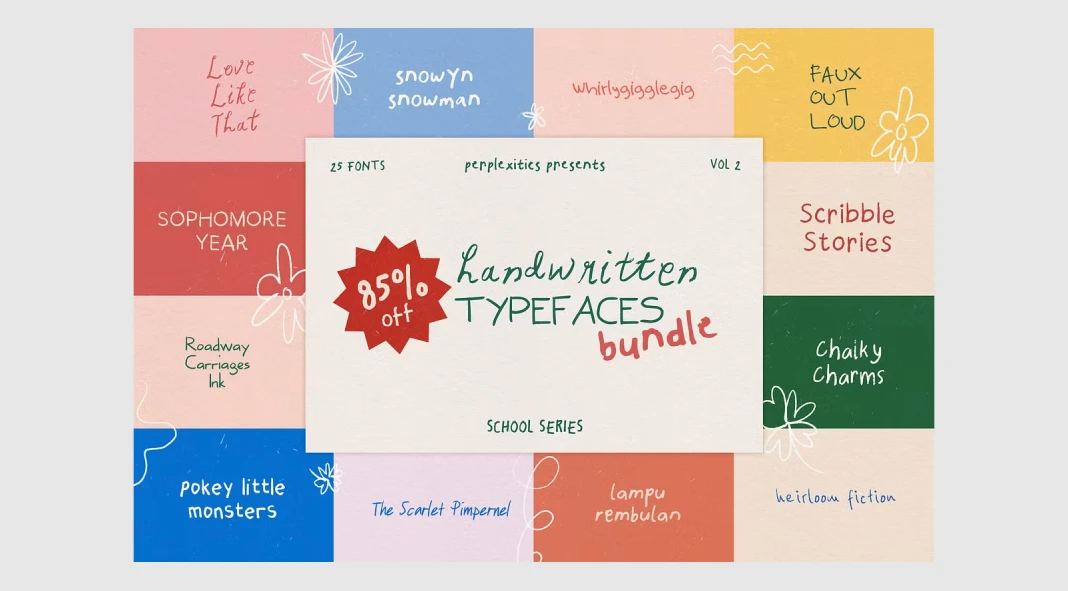
Craving Authentic Creativity? Unlock it with these Incredible Handwritten Fonts!
Ever feel like your designs are missing that human touch? Do you long for the days of handwritten notes and playful classroom doodles? You are not alone! In today’s digital age, that authentic, personal feel can be incredibly powerful. But how do you inject that warmth and personality into your projects?
Well, imagine having a treasure trove of unique, charming fonts that instantly evoke that nostalgic feeling. A handwritten font bundle can be the key to unlocking a whole new level of creative expression. This isn’t just about choosing a font; it’s about choosing a voice, a feeling, a connection.
Wouldn’t it be amazing to add that special something to your designs, making them stand out from the crowd? The “School Series: A Handwritten Font Bundle” by Perplexitics might just be the answer you’ve been looking for. Let’s explore why this bundle could be a game-changer for your creative projects.
Why Choose a Handwritten Font Bundle?
Why should designers and creatives consider using a handwritten font bundle in the first place? There are plenty of reasons! For instance, handwritten fonts bring a sense of authenticity and personality to designs that other fonts often lack.
Think about it. Machine-perfect fonts can sometimes feel sterile and impersonal. Handwritten font bundles, on the other hand, capture the quirks and imperfections of actual handwriting. This creates a more relatable and engaging experience for the viewer. They evoke a sense of nostalgia and warmth.
Besides that, a diverse handwritten font bundle offers incredible versatility. It provides you with a range of styles, from playful and whimsical to elegant and refined. This allows you to perfectly match the tone and message of your project. They are ideal for:
- Logos and branding
- Invitations and announcements
- Social media graphics
- Website headers
- Children’s books and educational materials
So, choosing a handwritten font bundle is a choice to give a project authenticity, personality, and versatility.
“School Series: A Handwritten Font Bundle” by Perplexitics: A Closer Look
Perplexitics has created something truly special with their “School Series” handwritten font bundle. It captures the essence of classic school days and adds a touch of nostalgia to your designs. This carefully curated collection offers a variety of styles, each with its own unique personality.
The “School Series” isn’t just a collection of fonts; it’s a toolkit for creating designs that resonate with your audience on a deeper level. What does this bundle contain, and what makes it so attractive?
What’s Included in the Bundle?
The “School Series” handwritten font bundle Vol.2 includes 25 unique fonts across 12 distinct typefaces. It provides a wide range of options to suit different design needs. Here’s a breakdown of what you can expect:
- Love Like That Regular, Alt1, Alt2, Alt3 (OTF, TTF): A charming and versatile font with multiple alternates for added flexibility.
- Snowyn Snowman (OTF, TTF): Perfect for winter-themed designs, this font is playful and inviting.
- Whirlygigglegig Regular, Bold (OTF, TTF): A fun and quirky font that adds a touch of whimsy to any project.
- Faux Out Loud Regular, Bold (OTF, TTF): A bold and expressive font that makes a statement.
- Sophomore Year Regular, Bold (OTF, TTF): A classic and clean font that is perfect for a variety of applications.
- Scribble Stories Regular, Italic, Bold, Bold Italic (OTF, TTF): A playful and energetic font that captures the feel of handwritten notes.
- Roadway Carriages Ink Regular, Bold (OTF, TTF): A vintage-inspired font with a touch of elegance.
- Chalky Charms (OTF, TTF): A fun font that looks like written with chalk.
- Pokey Little Monsters (OTF, TTF): Another playful and quirky font.
- The Scarlet Pimpernel Regular, Bold (OTF, TTF): A historical font with a dramatic flair.
- Lampu Rembulan Regular, Bold (OTF, TTF): A font with a modern touch.
- Heirloom Fiction Regular, Bold (OTF, TTF): A font with a vintage, classic, and nostalgic feel.
All fonts support multiple languages, ensuring your designs are accessible to a global audience.
Why This Font Bundle Stands Out
So, what makes this handwritten font bundle different from all the others out there? Apart from the sheer variety and quality of the fonts included, the “School Series” excels in several key areas:
- Authenticity: The fonts are designed to mimic real handwriting.
- Versatility: With 25 fonts, there’s something for every project.
- Ease of Use: The fonts are available in OTF and TTF formats, ensuring compatibility.
- Multilingual Support: Design for a global audience without limitations.
- Nostalgia: The “School Series” evokes memories of simpler times, making your designs more relatable.
Therefore, if you are looking for a handwritten font bundle with authenticity, versatility, and ease of use, this bundle is for you!